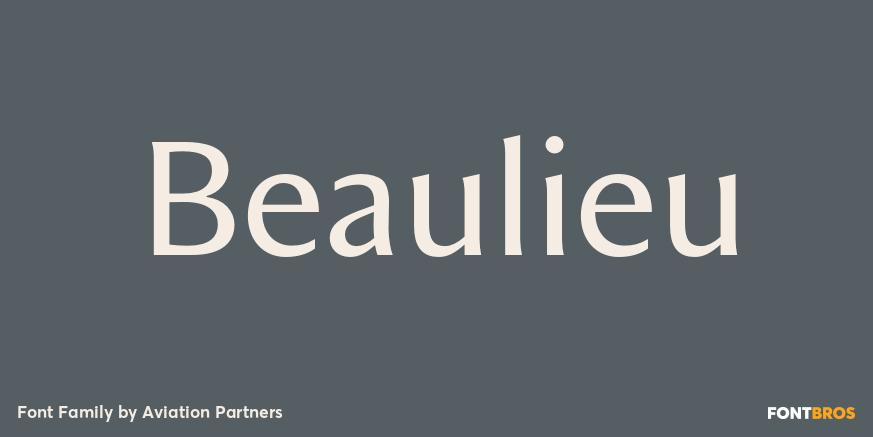
Beaulieu
About Beaulieu
With only a suggestion of the serifs remaining, Beaulieu is modelled on traditional serif letterforms but with low-contrast stroke widths and a generous x-height. The family has a clean appearance and excellent readability. Six weights plus italics, small…